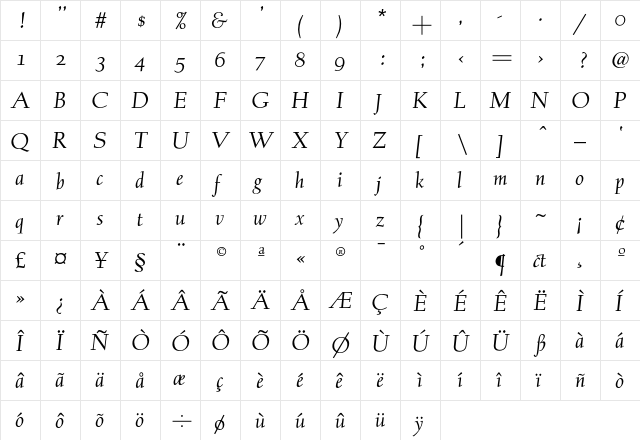
AlbertanH-Italic Regular Font Preview
AlbertanH-Italic Regular
Design Context for AlbertanH-Italic Typeface
AlbertanH-Italic takes a measured approach to typography — its balanced proportions and neutral character make it a reliable workhorse for both digital and print work. The dynamic lean of this cut emphasises speed and emphasis in any layout.
Pro Tip: Try AlbertanH-Italic for annotation and caption copy alongside an upright companion — the contrast in angle creates a dynamic but ordered typographic system.